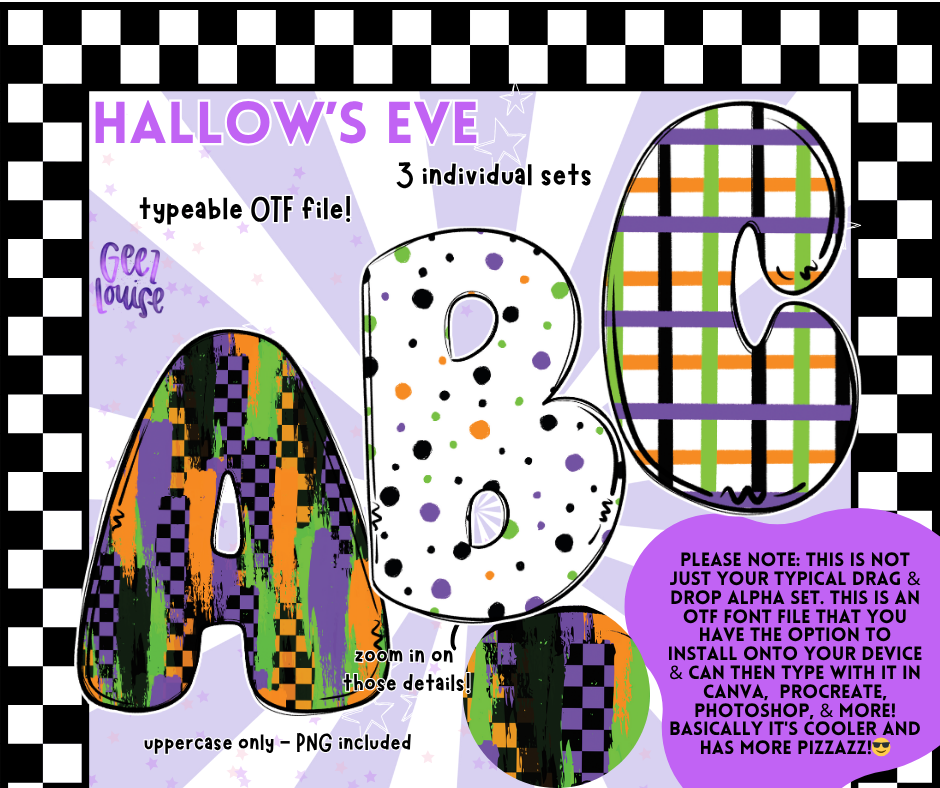
Hallow’s Eve Typeable OTF Alpha Font with PNGs | 3 Pattern Styles
🎃 Three patterns. One bold font. Unlimited Halloween vibes.
The Hallow’s Eve Typeable OTF Alpha Font comes with three unique patterns — checker grunge, polka dots, and plaid — so you can instantly switch up your look without swapping files. Perfect for spooky-season designs, party invites, sublimation projects, and more.
• Three looks in one – Switch styles without switching products